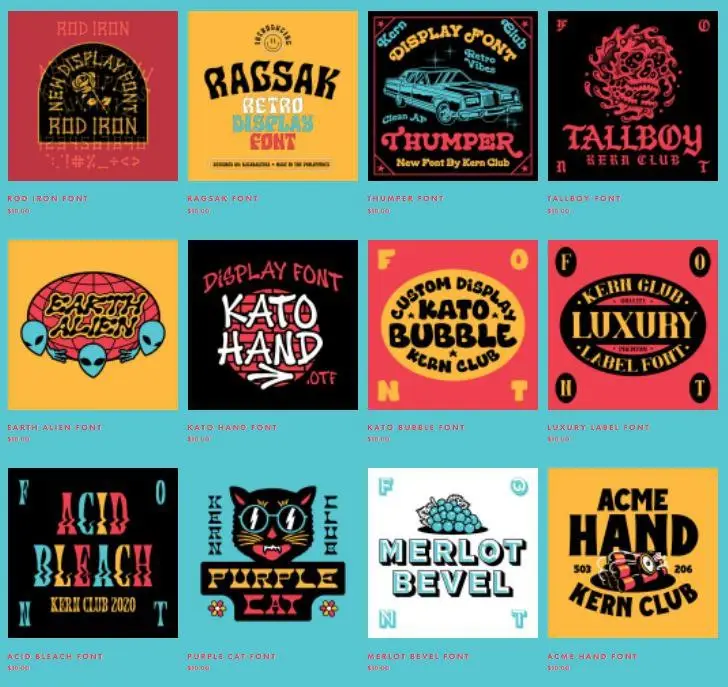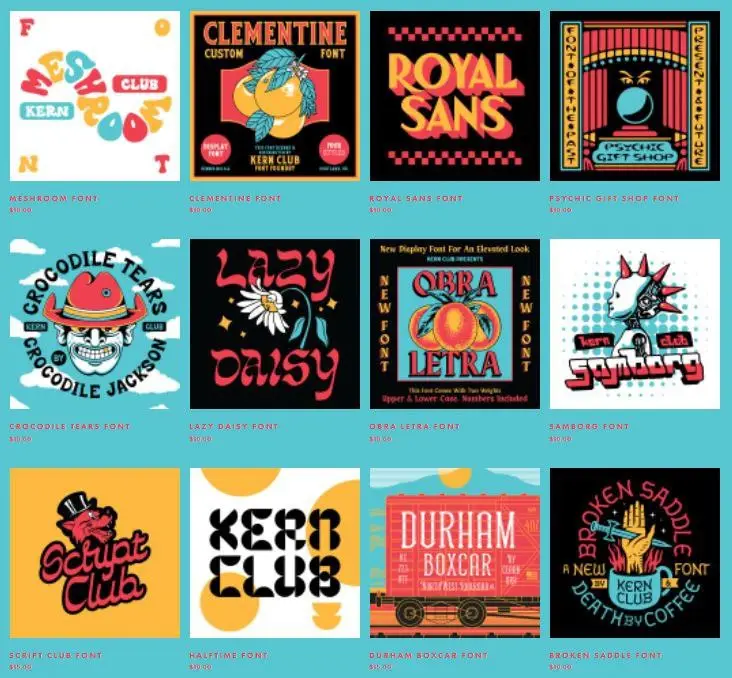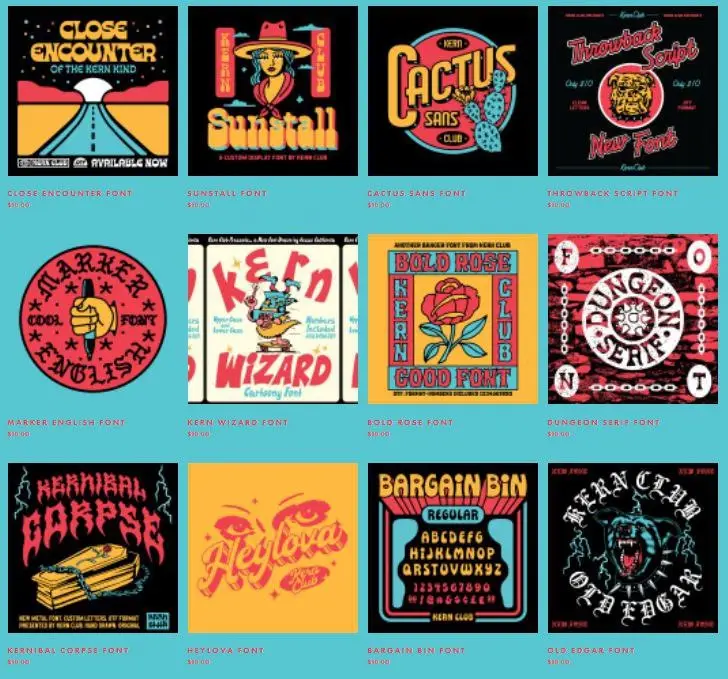
100 Font’S By Kenrclub
Introducing the 100 Font’S By Kenrclub, a diverse collection of high-quality typefaces designed to elevate your creative projects. This extensive font library includes a variety of styles, from elegant serifs to modern sans-serifs, ensuring you find the perfect match for any design.
• 100 unique fonts
• Multiple weights and styles
• Easy to read and versatile
• Perfect for both digital and print applications
• Utilize different weights for hierarchy in your designs.
• Combine multiple fonts from the collection for a unique look.
• Ensure readability by pairing fonts wisely.